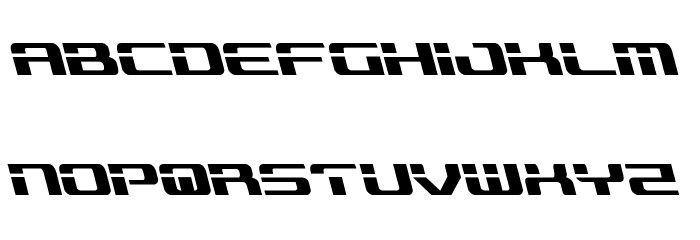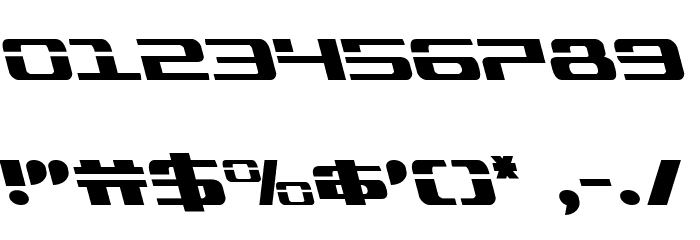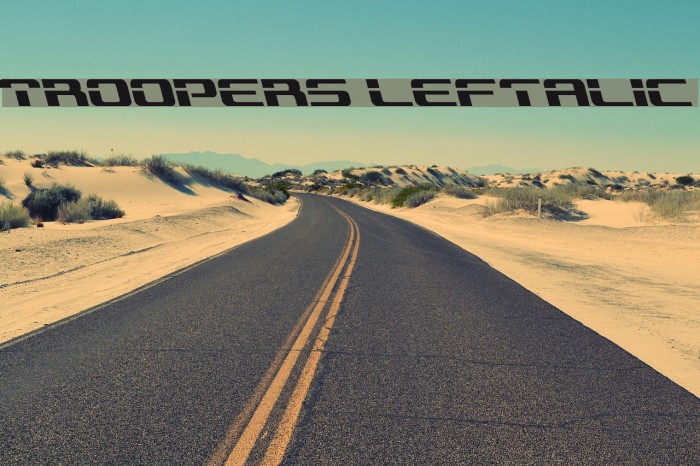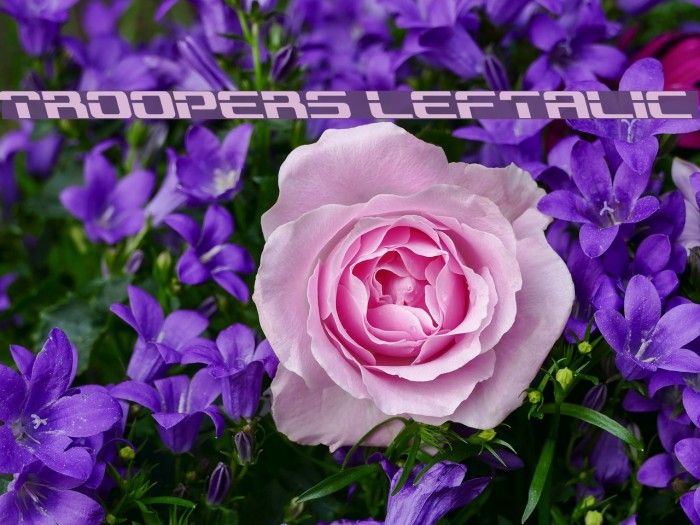
Troopers Leftalic Font
This font features a bold, futuristic design with a distinct geometric style. The characters are constructed with sharp angles and straight lines, giving it a modern and tech-inspired appearance. The font includes both uppercase and lowercase letters, numerals, and a variety of special characters. The design is consistent across all characters, maintaining a cohesive look. The boldness of the font makes it stand out, while the angular shapes add a unique touch. It's ideal for projects that require a strong, contemporary aesthetic.
A bold, futuristic font with geometric, angular characters.
- Proposed Projects: Ideal for technology branding, sci-fi themed designs, video game interfaces, and modern posters.